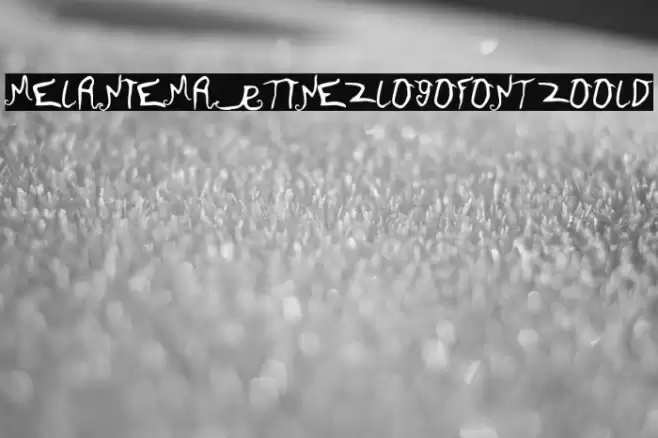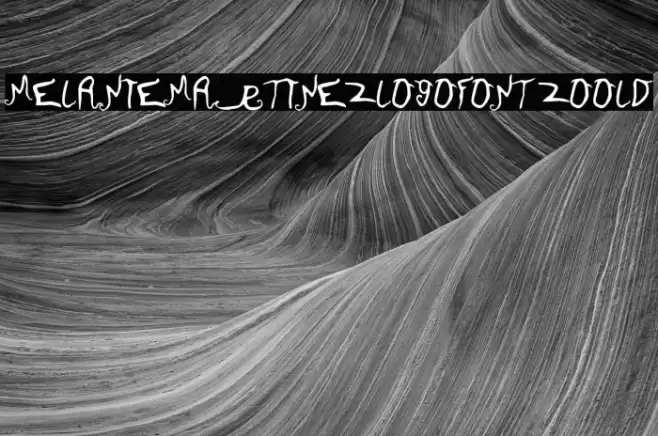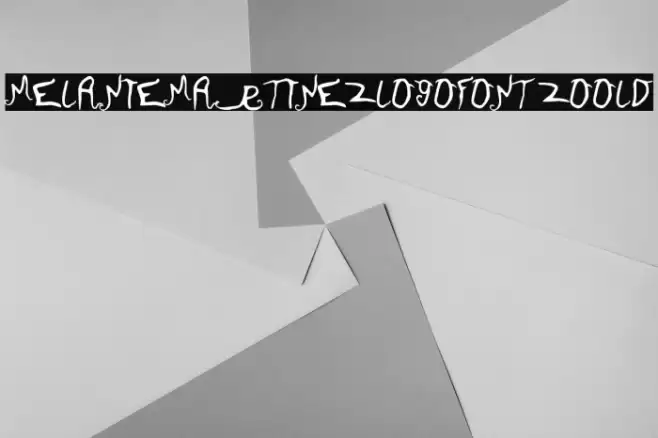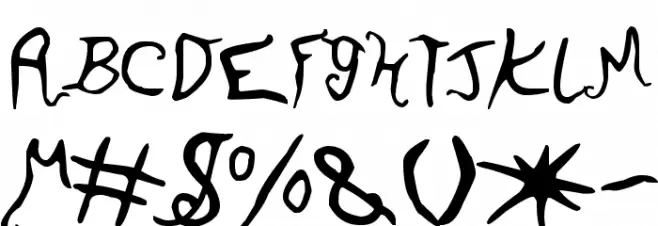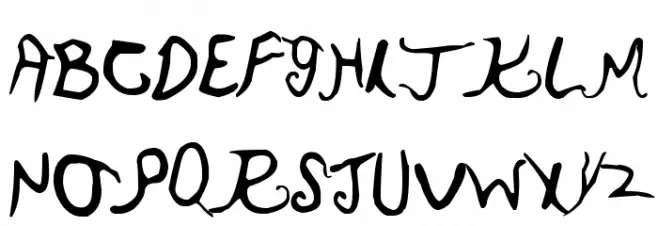
MELANIEMARTINEZLOGOFONT2 ZOOLD Font
MELANIEMARTINEZLOGOFONT2 ZOOLD Description
This font features a whimsical and artistic style, characterized by its fluid and irregular strokes. Each character appears hand-drawn, with varying thickness that adds a dynamic and playful feel. The uppercase and lowercase letters maintain a consistent style, with unique flourishes and curves that give the font a distinctive personality. The numbers and special characters are equally expressive, fitting seamlessly with the overall design. This font's creative and unconventional appearance makes it ideal for projects that require a touch of individuality and flair.
A whimsical, hand-drawn font with fluid, irregular strokes and artistic flair from Uncategorized fonts.
- Proposed Projects: Ideal for artistic projects, children's book covers, creative branding, and unique event invitations.
- Overall Style: Decorative
- Use Case: Logos, Headlines, Creative projects